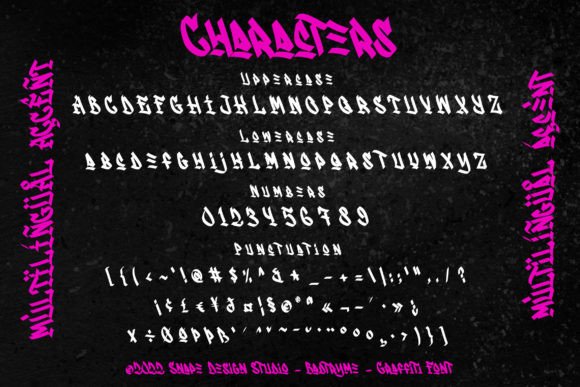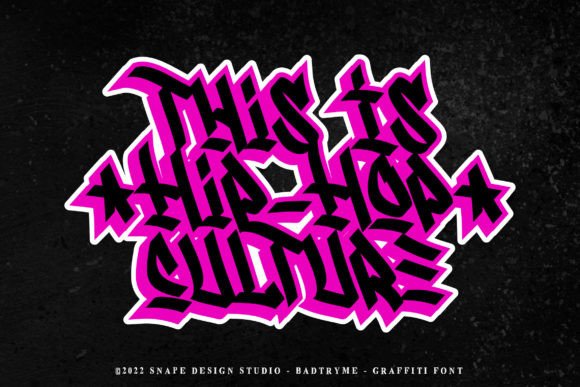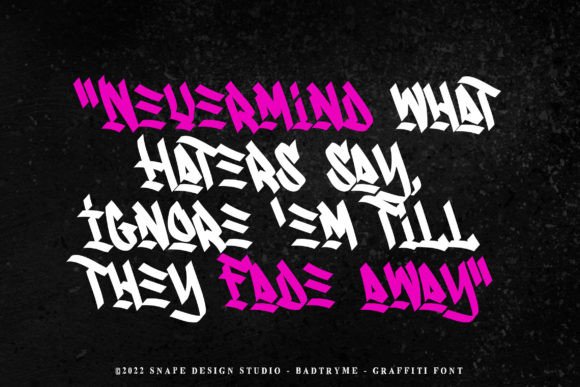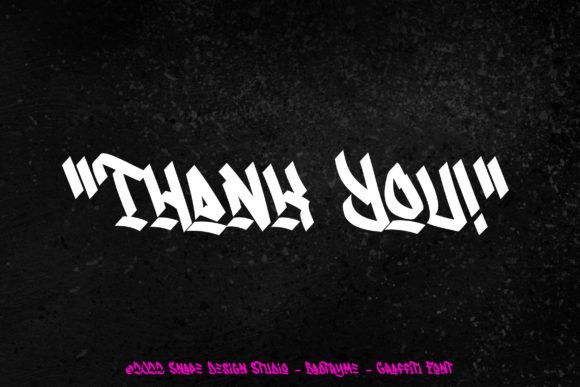
Introducing Badtryme Font: The Ultimate Urban Display Font
Are you tired of using the same old fonts in your design projects? Look no further than Badtryme Font, a cool and trendy display font that’s inspired by the raw energy of street art calligraphy. With its urban, hip, and graffiti-style characters, Badtryme Font is the perfect addition to any design project that needs an authentic touch.
The Inspiration Behind Badtryme Font
Badtryme Font is inspired by the vibrant and dynamic world of street art, where creativity knows no bounds. The font’s design is rooted in the typical street art calligraphy that can be seen on city walls, skateboards, and graffiti tags. The result is a font that’s edgy, bold, and unapologetic – perfect for designers who want to add a touch of urban grit to their work.
Key Features of Badtryme Font
- Urban and Hip Aesthetic: Badtryme Font boasts a unique and stylish design that’s perfect for creating eye-catching headlines, titles, and slogans.
- Graffiti-Style Characters: The font features a range of graffiti-style characters, including bold and italic versions, to give your designs an authentic street art feel.
- Display Font: Badtryme Font is specifically designed as a display font, making it perfect for use in large sizes to grab attention and make a statement.
Uses for Badtryme Font
Badtryme Font is a versatile font that can be used in a variety of design projects, including:
- Graphic Design: Use Badtryme Font to create bold and eye-catching posters, flyers, and brochures.
- Branding and Logo Design: The font’s unique style makes it perfect for creating memorable logos and brand identities.
- Streetwear and Fashion: Badtryme Font is a natural fit for streetwear and fashion brands looking to add an urban touch to their designs.
- Advertising and Marketing: The font’s bold and attention-grabbing style makes it perfect for use in advertising and marketing materials.
Tips for Using Badtryme Font
To get the most out of Badtryme Font, here are a few tips to keep in mind:
- Use it in Large Sizes: Badtryme Font is designed to make a statement, so use it in large sizes to maximize its impact.
- Experiment with Colors: The font’s bold style looks great in a range of colors, so don’t be afraid to experiment and find the perfect hue for your design.
- Pair it with Other Fonts: Badtryme Font can be paired with a range of other fonts to create a unique and stylish design.
Badtryme Font is a cool and trendy display font that’s perfect for designers who want to add an authentic touch to their projects. With its urban, hip, and graffiti-style characters, Badtryme Font is sure to make a statement in any design project. Whether you’re a graphic designer, brand identity expert, or streetwear enthusiast, Badtryme Font is a must-have font that’s sure to inspire your creativity.